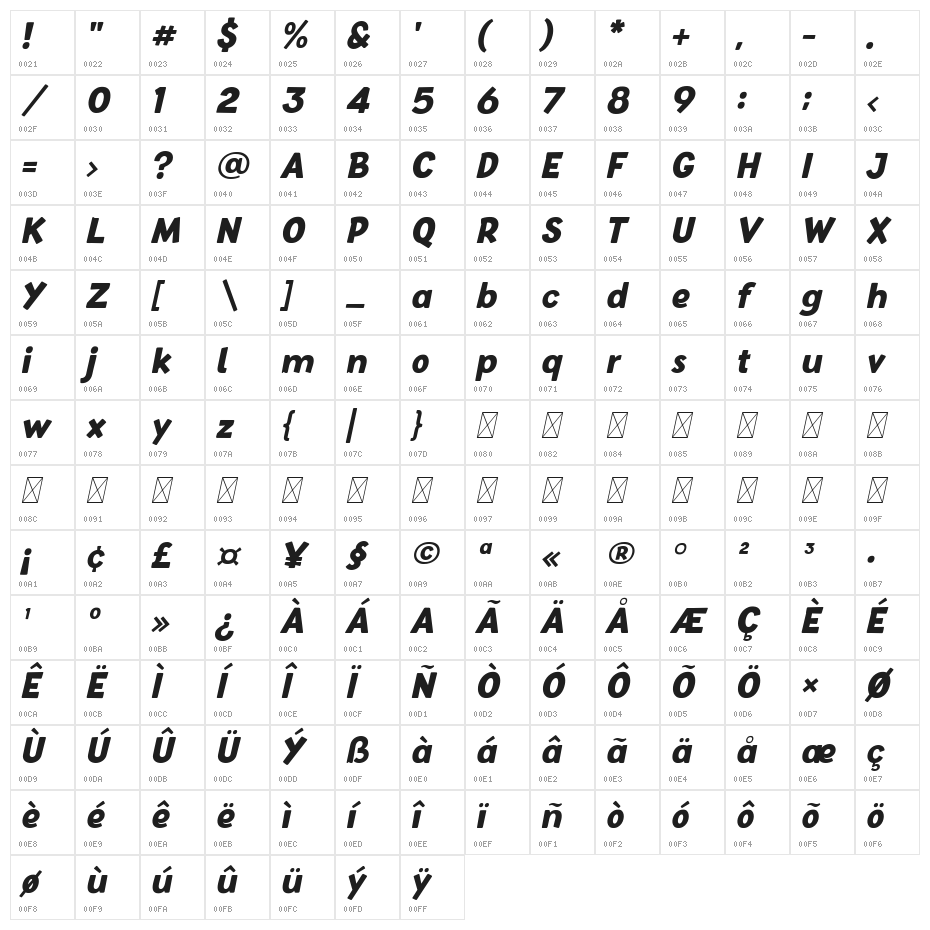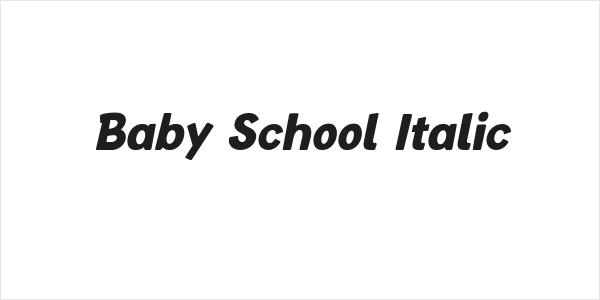
Baby School Italic Font
Baby School Italic Description
This font features a playful and bold style with a slight italic slant, giving it a dynamic and energetic appearance. The characters are rounded and thick, providing a friendly and approachable feel. The uppercase and lowercase letters maintain a consistent weight, ensuring readability and uniformity. Numbers and special characters are designed to match the overall style, making them easily recognizable. The font's boldness and slight slant make it suitable for projects that require a lively and engaging look.
| Proposed Projects | Ideal for children's books, educational materials, playful branding, and posters. |